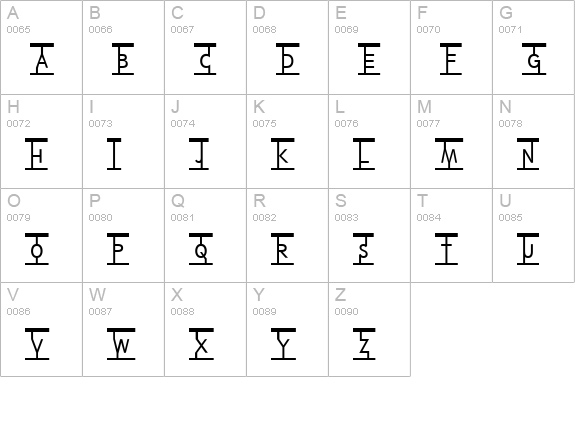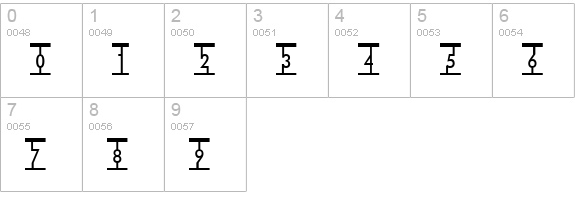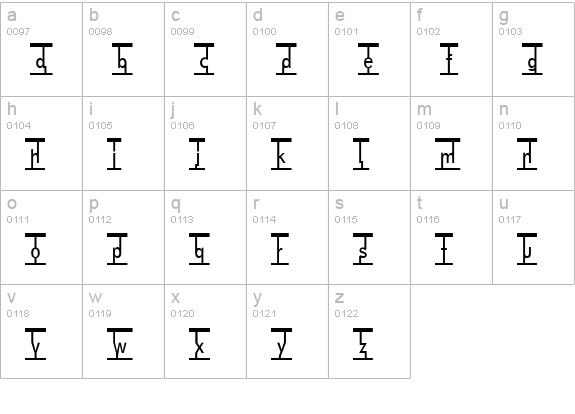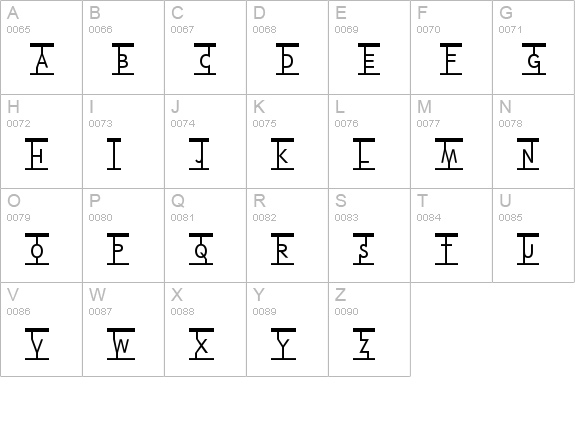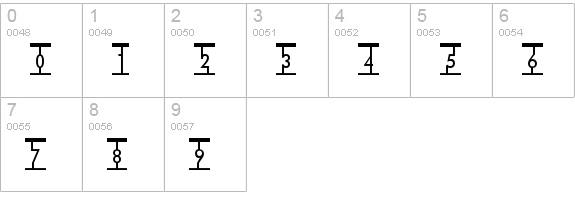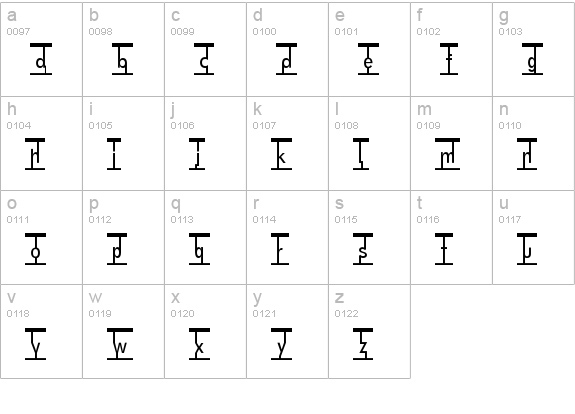
Snag Mag Font Details
Introducing Snag Mag, a bold and expressive font that exudes a sense of confidence and creativity. With its eye-catching curves and unique letterforms, Snag Mag is the perfect choice for designers, artists, and individuals who want to make a lasting impression. This versatile font is ideal for a wide range of projects, from logos and branding to posters and headlines. Whether you're looking to add a touch of sophistication to your design or want to make a bold statement, Snag Mag has you covered. What sets Snag Mag apart is not just its stunning design, but also its accessibility. This font is available for free download at FontsMarket.com, making it easily accessible to everyone. Now, you can elevate your designs without breaking the bank. Snag Mag is not just visually appealing, but also highly legible. Its carefully crafted letterforms ensure readability even at smaller sizes, making it suitable for both print and digital media. No matter the medium, Snag Mag will make your message stand out. Designed with attention to detail, Snag Mag offers a wide range of characters and glyphs, allowing you to create truly unique designs. Whether you want to emphasize a word or add a decorative element, this font has the versatility to bring your vision to life. So why wait? Download Snag Mag for free at FontsMarket.com and unlock a world of creative possibilities. Whether you're a professional designer or a casual enthusiast, this font will elevate your projects and help you leave a lasting impression. Don't miss out on this incredible opportunity to enhance your design game with Snag Mag.